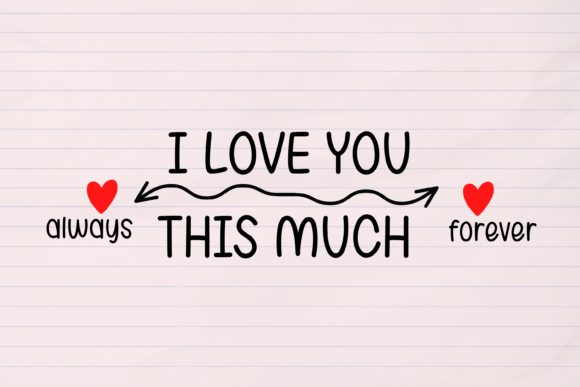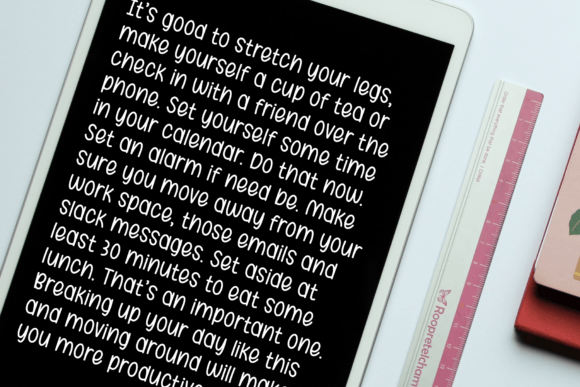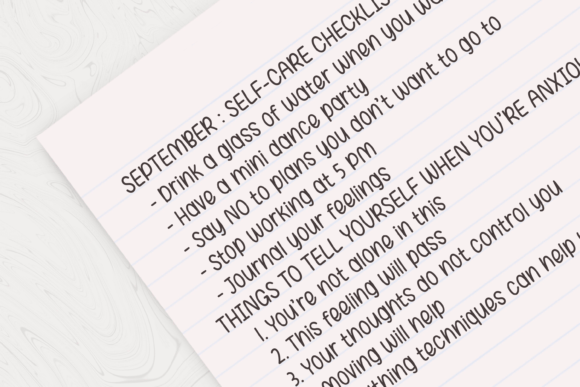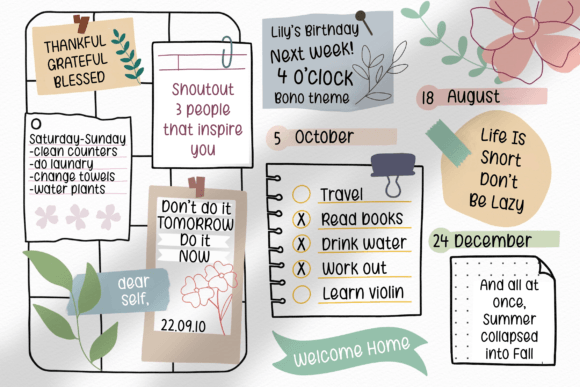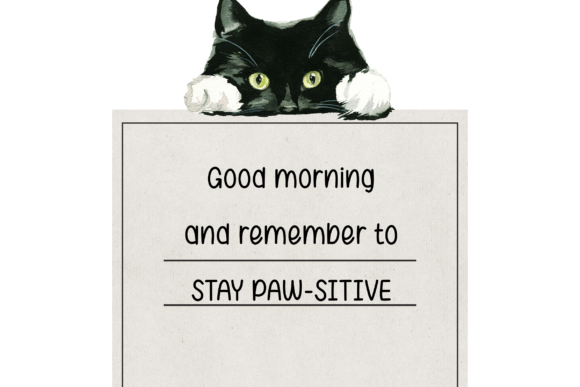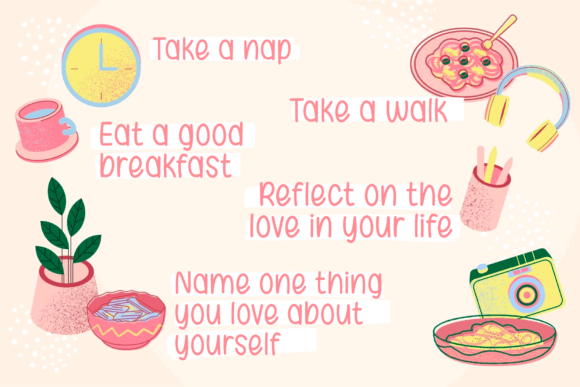
Introduction to New Year Plan Font
As we sit down with our calendars and pens, envisioning the perfect start to a new year, we often find ourselves looking for the perfect design resource to match our creativity. The blank page stares back, waiting for our ideas to come alive. It’s in these moments that we discover the beauty of a well-designed font – one that not only reflects our personality but also elevates our creative project to new heights.
Enter the New Year Plan Font, a simple, neat, and cute handwritten font that has captured the hearts of designers and crafters alike. Its high-quality design makes it an invaluable addition to any project, from digital planners to invitations and greeting cards. With a transparent background, this versatile font is ready to be downloaded and used in all your creative endeavors.
- High-quality design resource ideal for creative projects, especially those related to the New Year.
- Features a transparent background, making it easy to customize and integrate into different designs.
- Includes a range of characters, including uppercase and lowercase letters, numbers, and symbols.
- Supports multiple languages, making it a versatile design resource for global projects.
Honest Review: New Year Plan Font
I recently had the chance to work with the New Year Plan Font and I must say it’s been a great addition to my design resource collection. This font is perfect for any creative project that requires a touch of modernity and a dash of festive cheer.
Here are some things that work well: ✨ The font comes in high quality and has a clean, minimalistic design that makes it versatile for use in various contexts. ✨ The transparent background option allows for seamless integration with any image or design element. ✨ And the best part? It’s free to download, making it an excellent choice for designers on a budget.
Now, here are some limitations: ⚠️ The font family is relatively small, which might limit its use in certain projects. ⚠️ Additionally, the font may not be suitable for text-heavy designs, as the minimalistic design might make it difficult to read.
Overall, I’m quite impressed with the New Year Plan Font. It’s a great design resource that can add a unique touch to your creative project. While it has some limitations, I believe it’s a worthwhile addition to any designer’s collection.
- Perfect for modern and minimalist designs
- High quality and clean design
Common Use Cases for New Year Plan Font
The New Year Plan Font is perfect for use in New Year’s resolutions, goal-setting templates, and motivational designs. It’s also great for use in business and marketing materials, such as brochures and flyers.